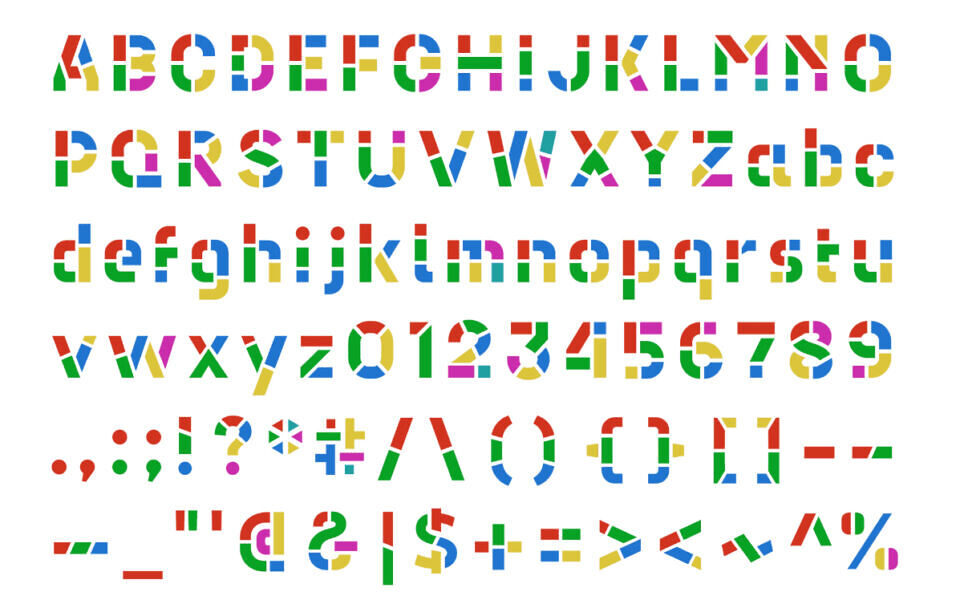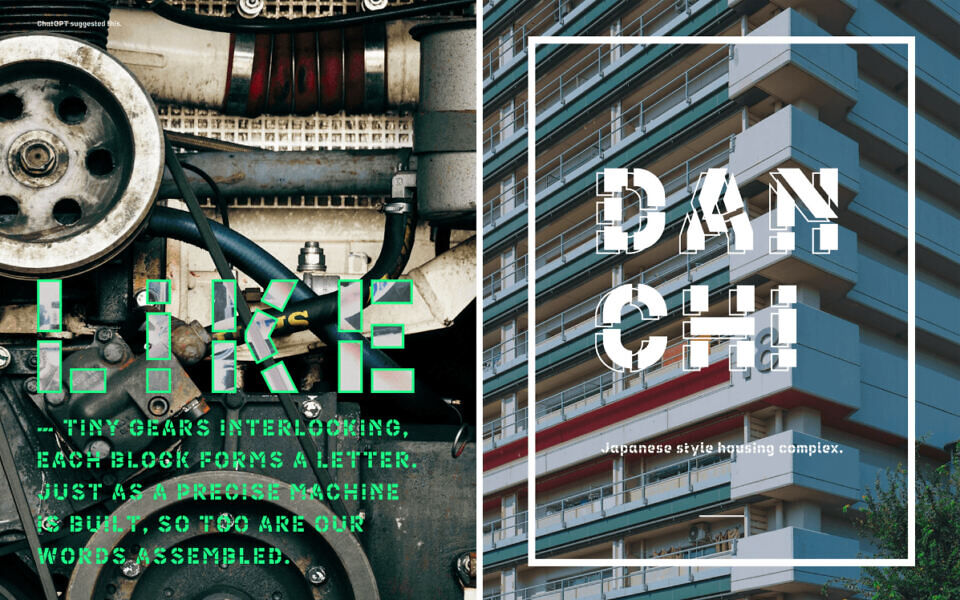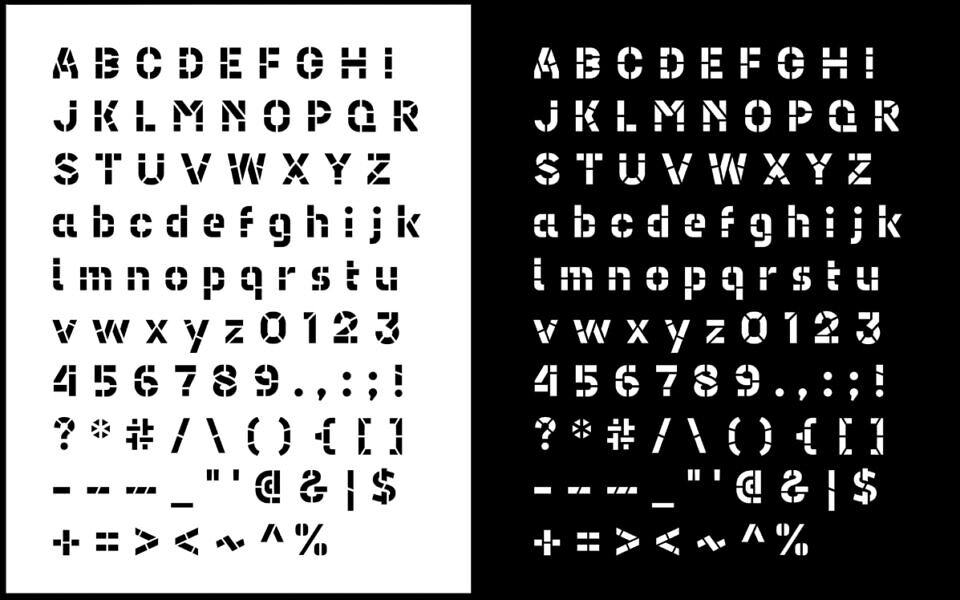
Ballast Stencil Font
Ballast Stencil Font is a free bold, modern typeface with a rugged, industrial edge. Its clean lines and stencil-inspired design make it ideal for impactful logos, posters, and branding projects.
Offering versatility with multiple weights, Ballast balances strength and clarity, ensuring legibility across print and digital media. Perfect for designers seeking a distinctive, utilitarian aesthetic, this font delivers a striking visual presence.
Designed by: Wataru Haraguchi